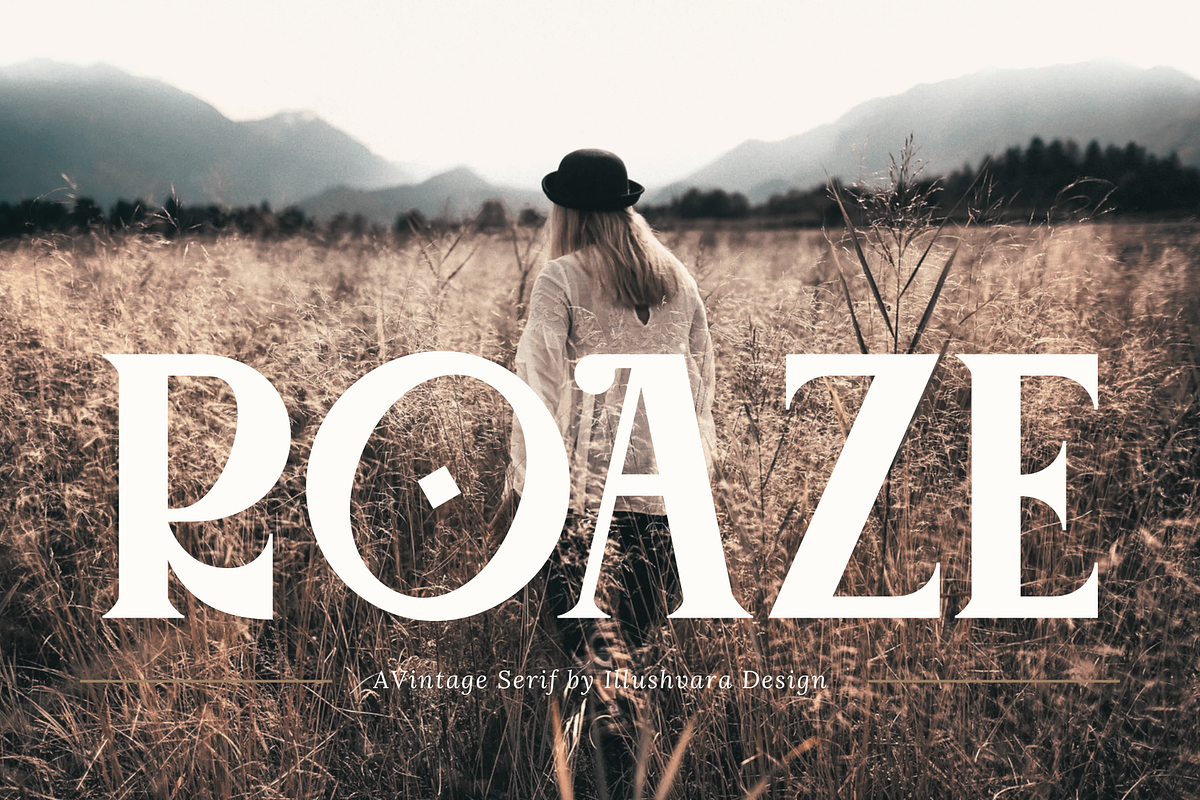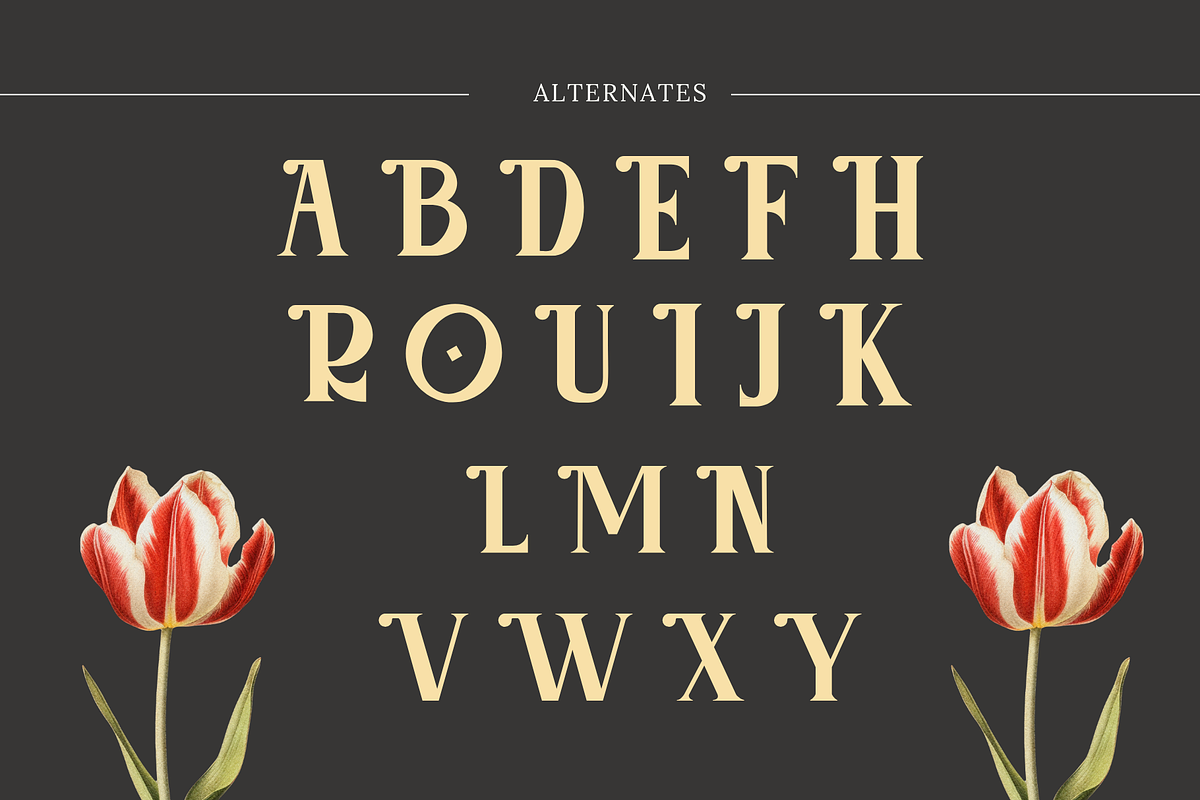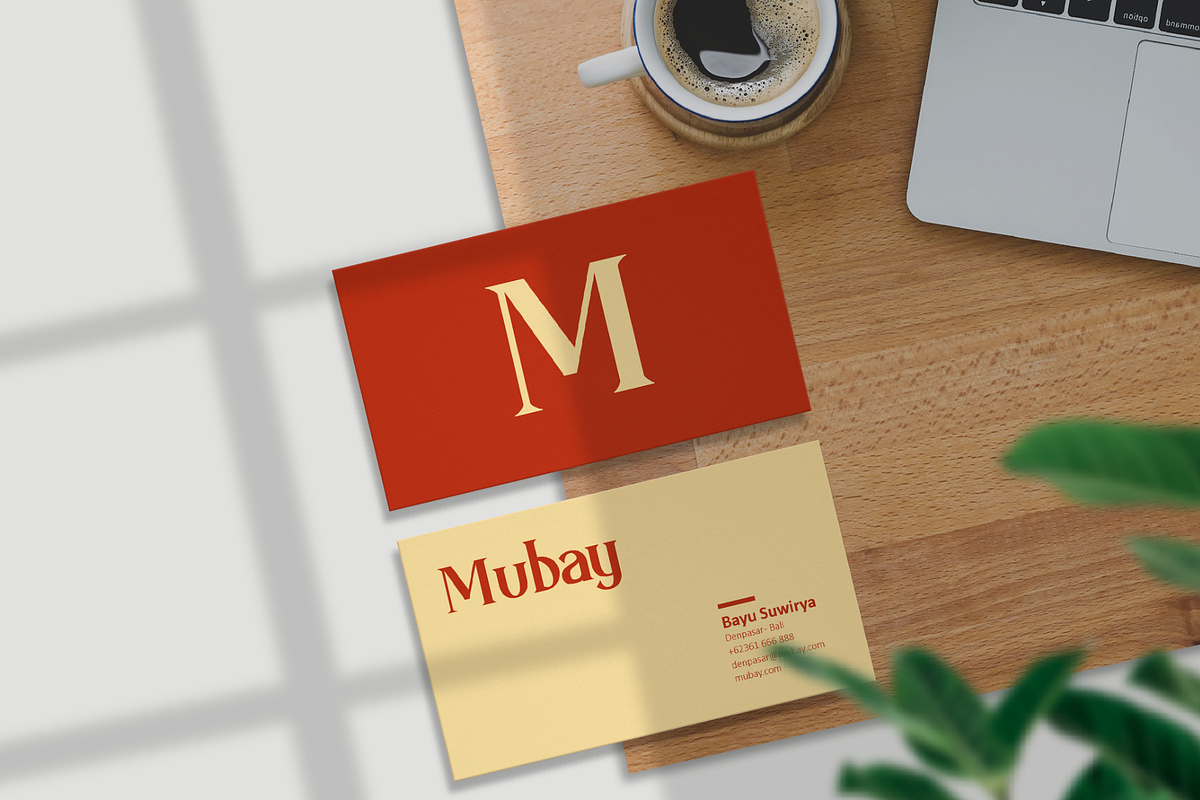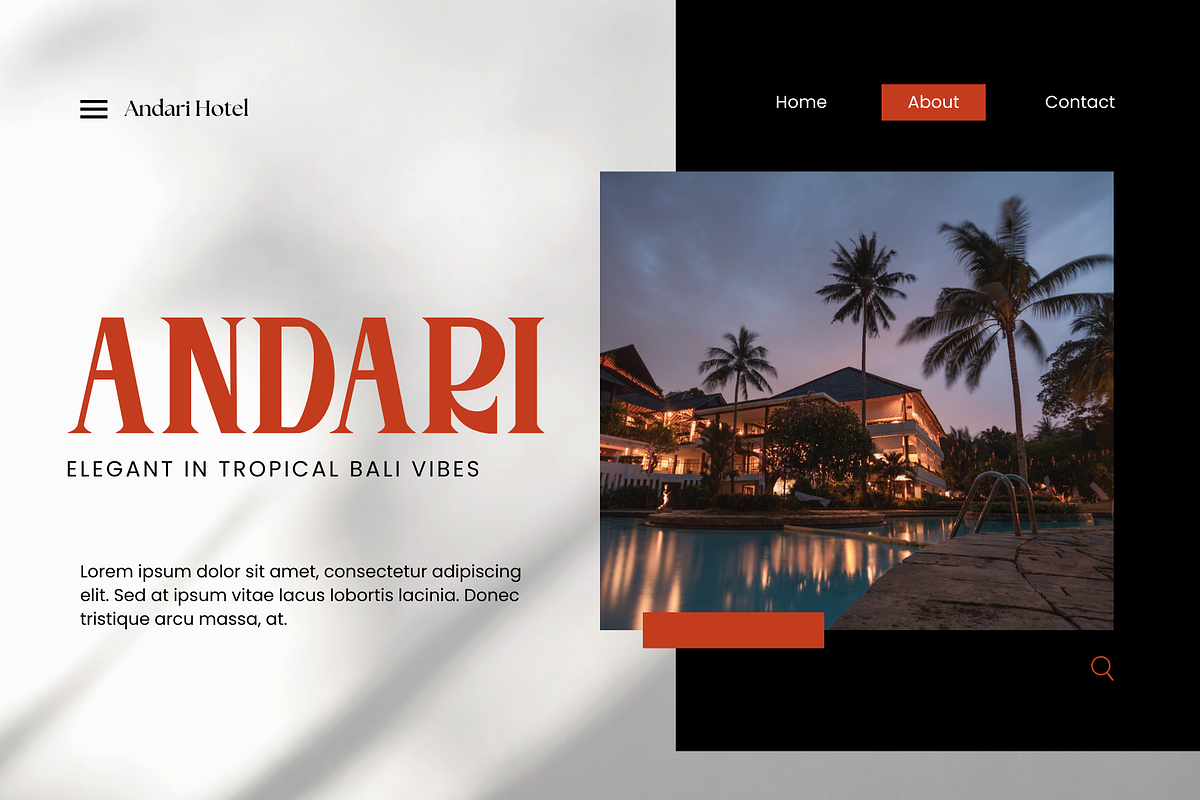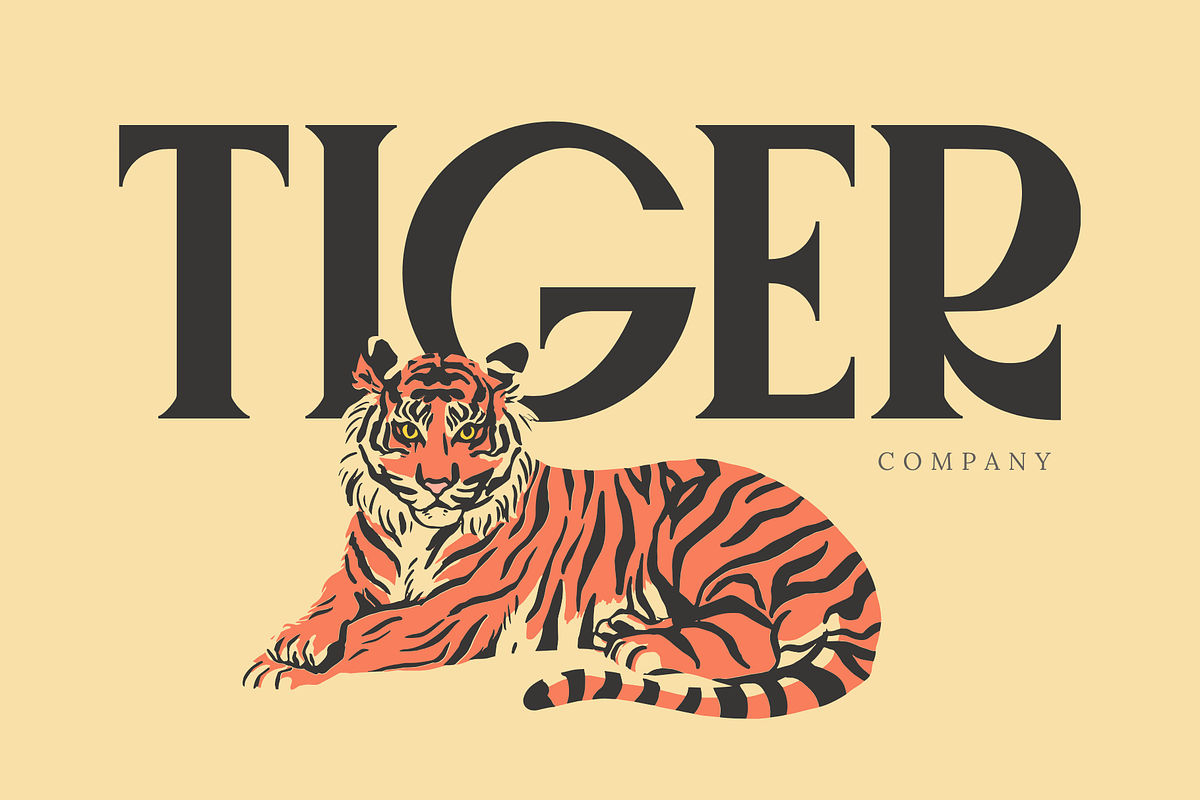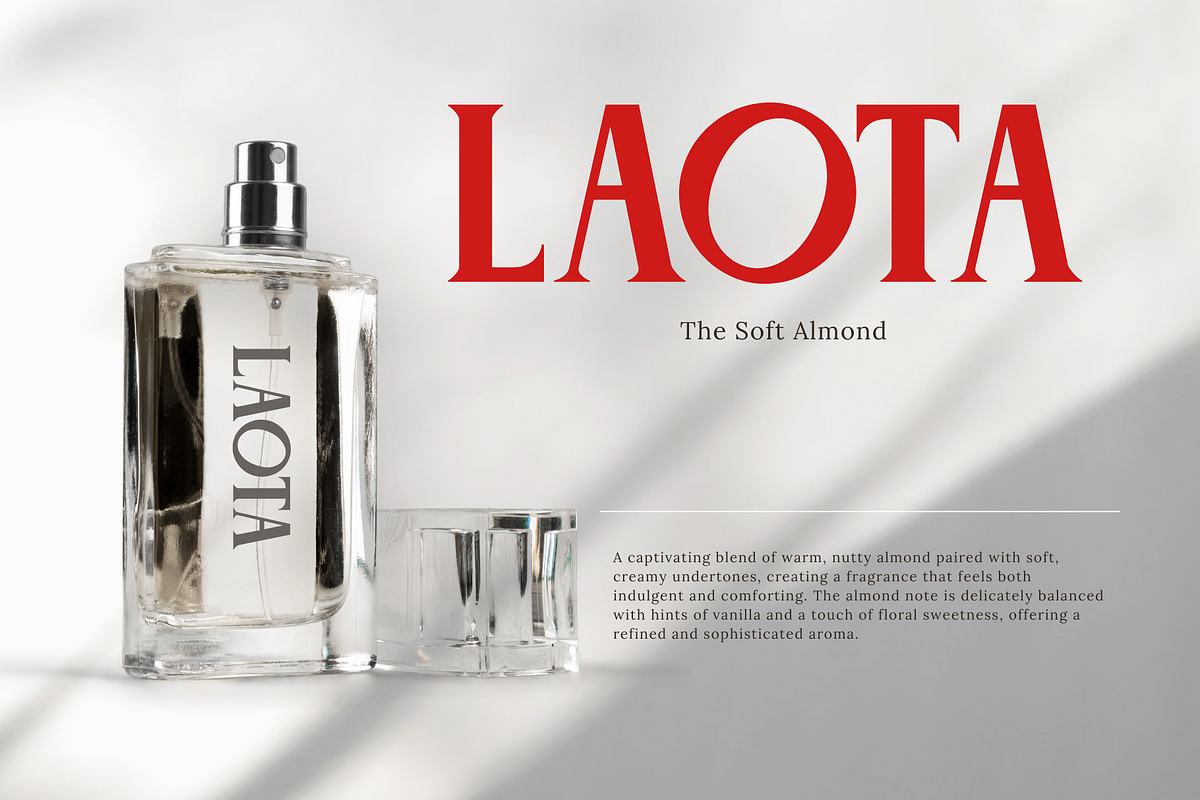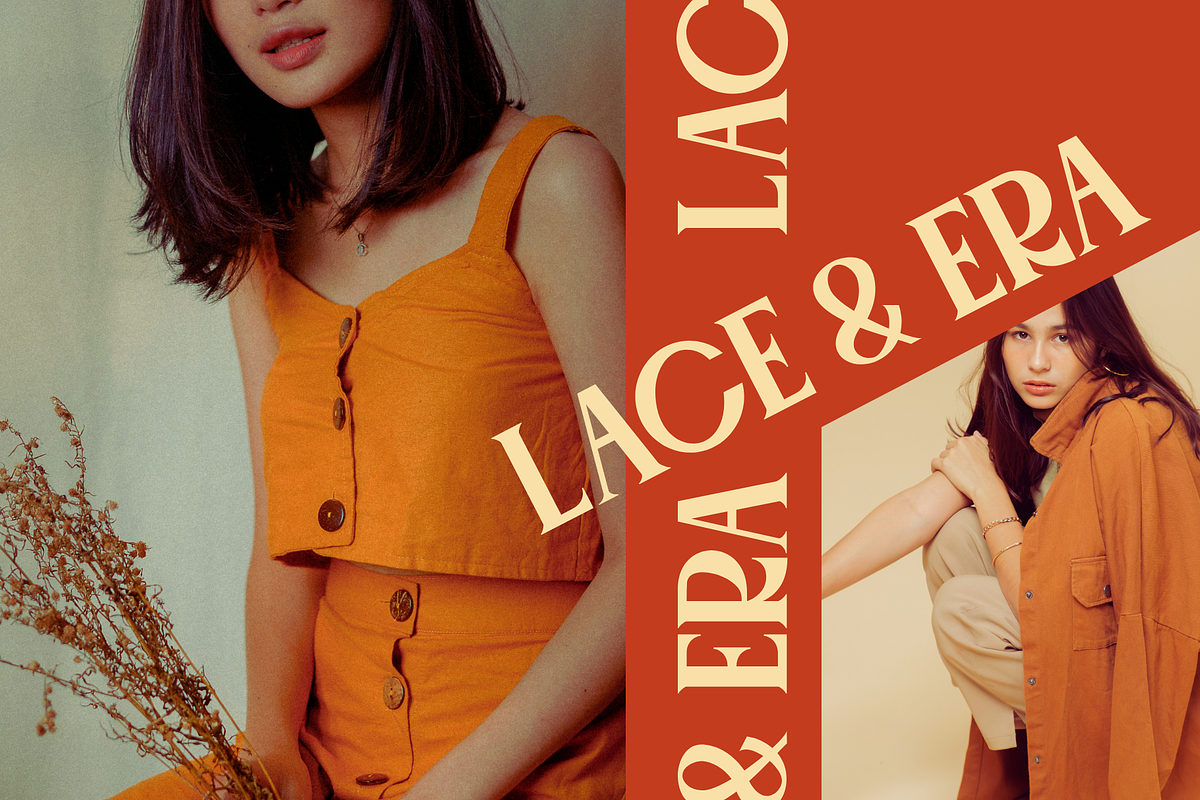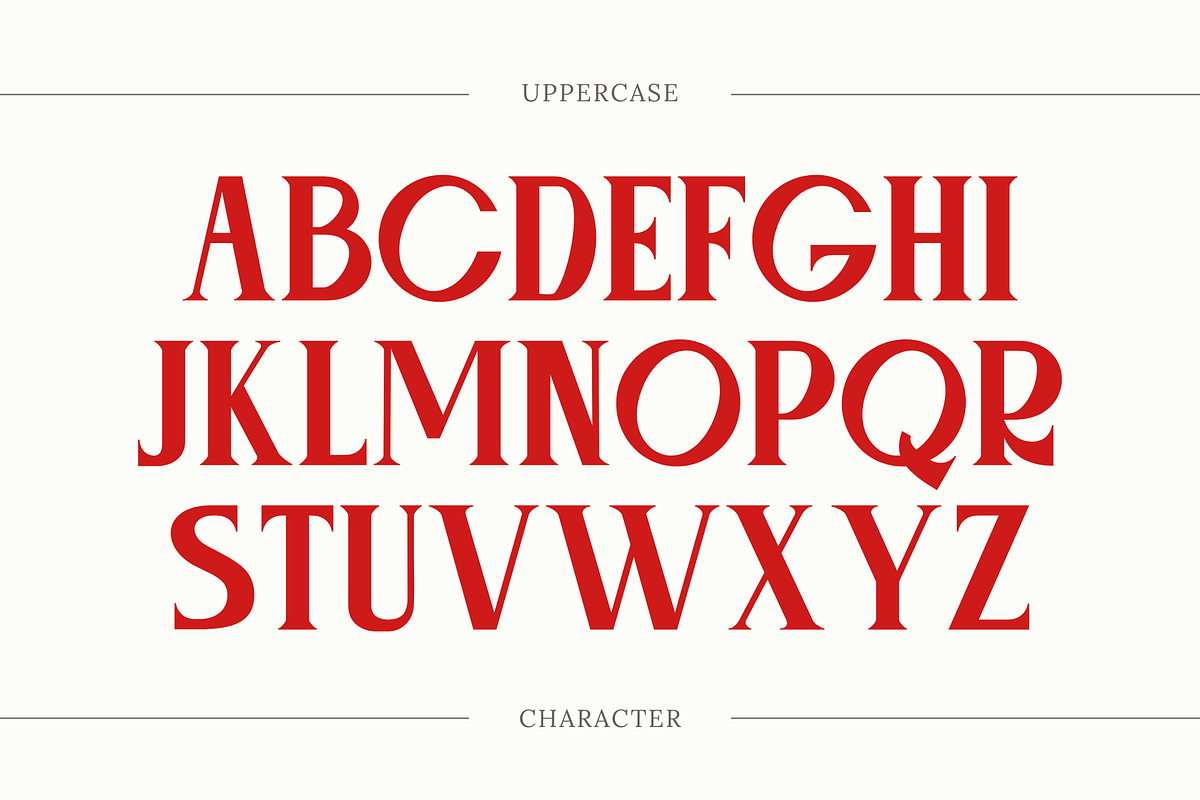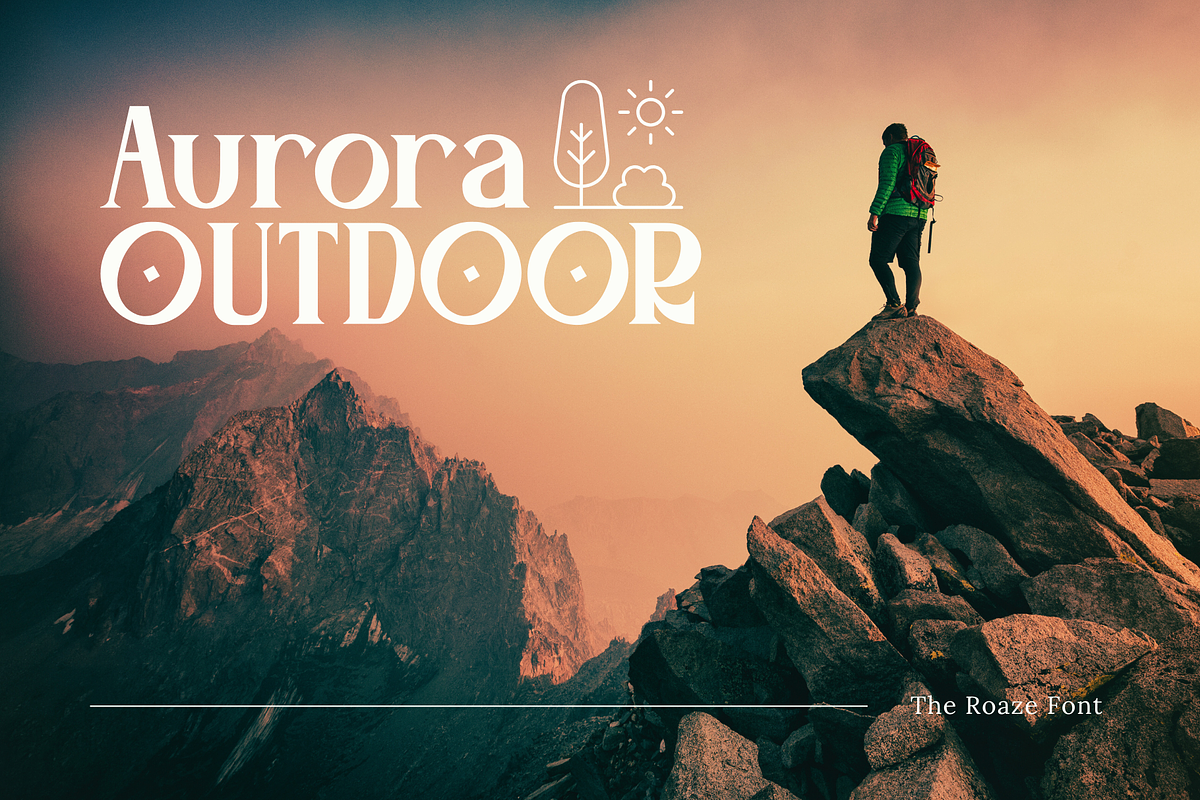
Roaze - Vintage Logo Font
Say hello to Roaze – Vintage Logo Font
Roaze offers beautiful typographic harmony for a diversity of design projects, including logos & branding, social media posts, advertisements & product designs.